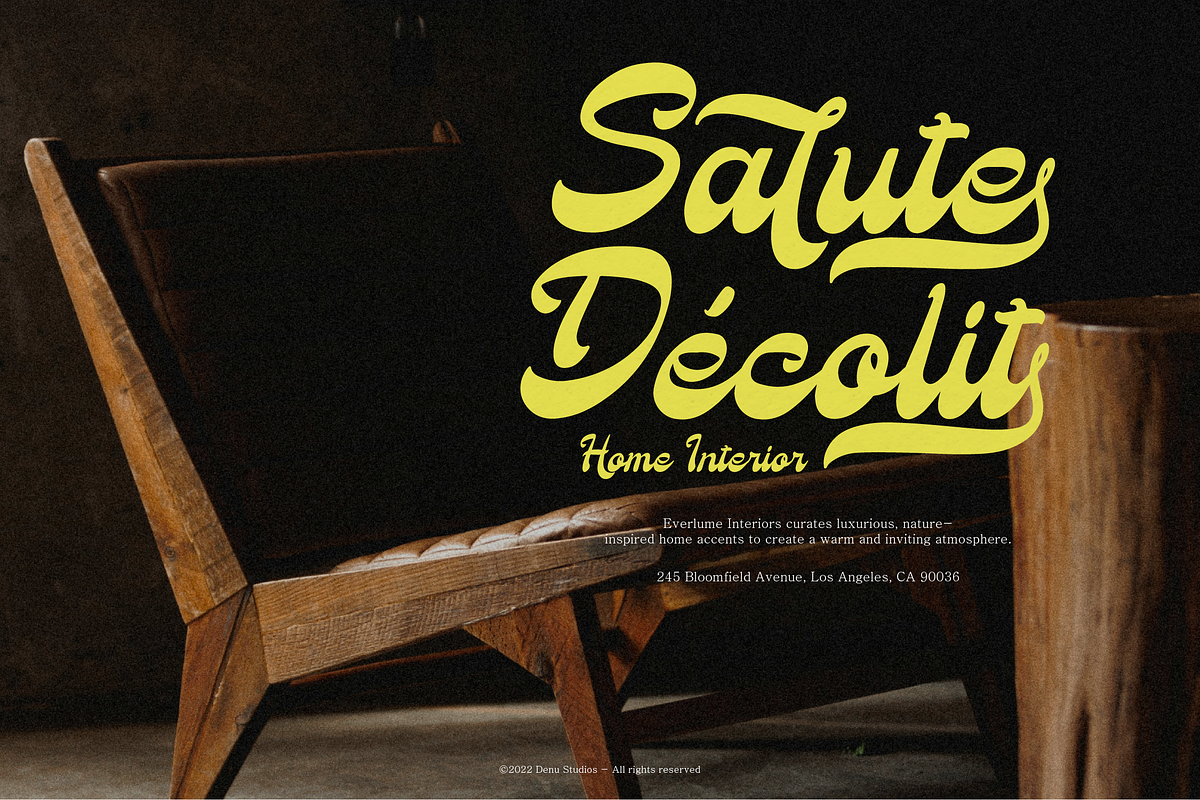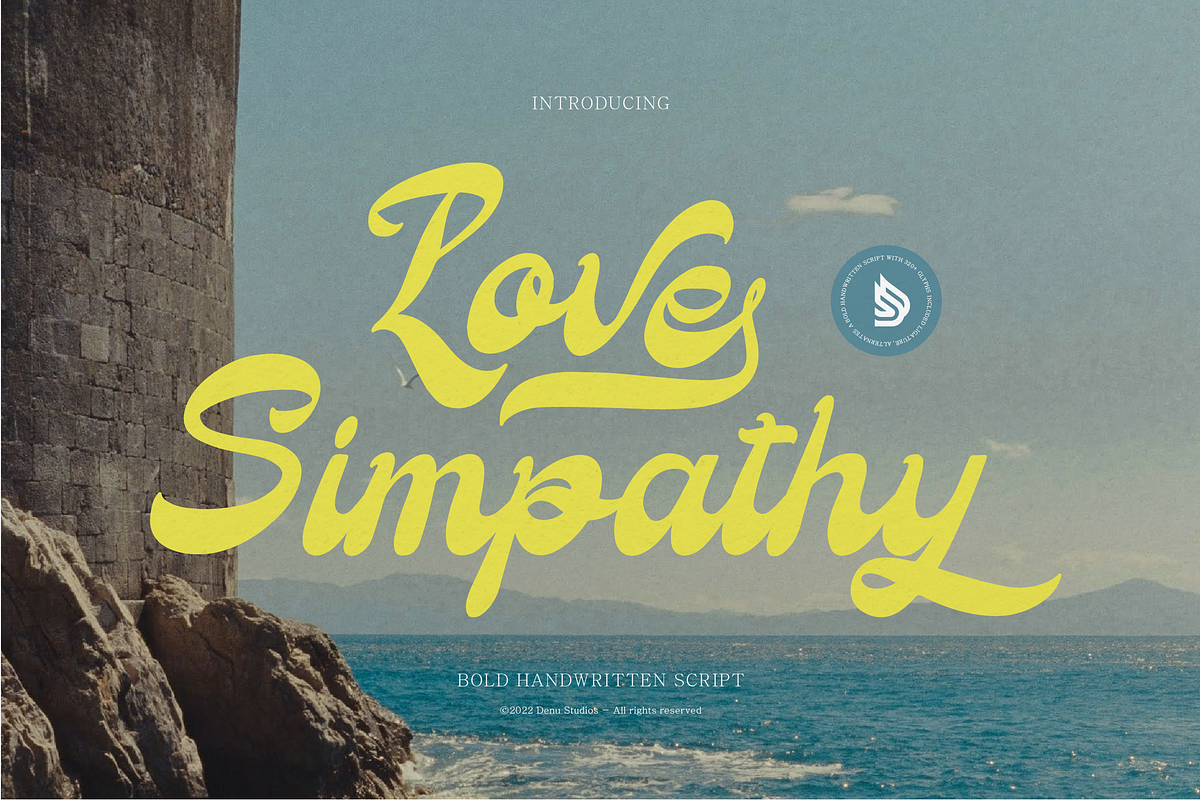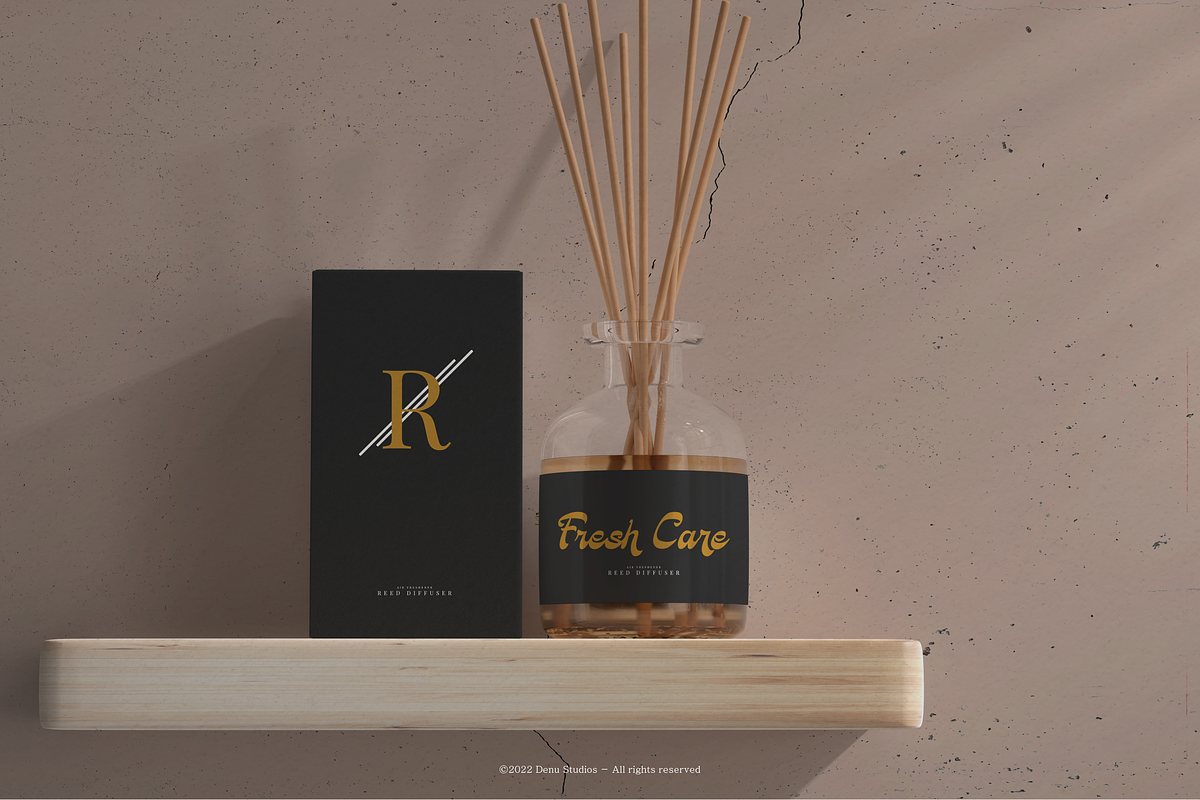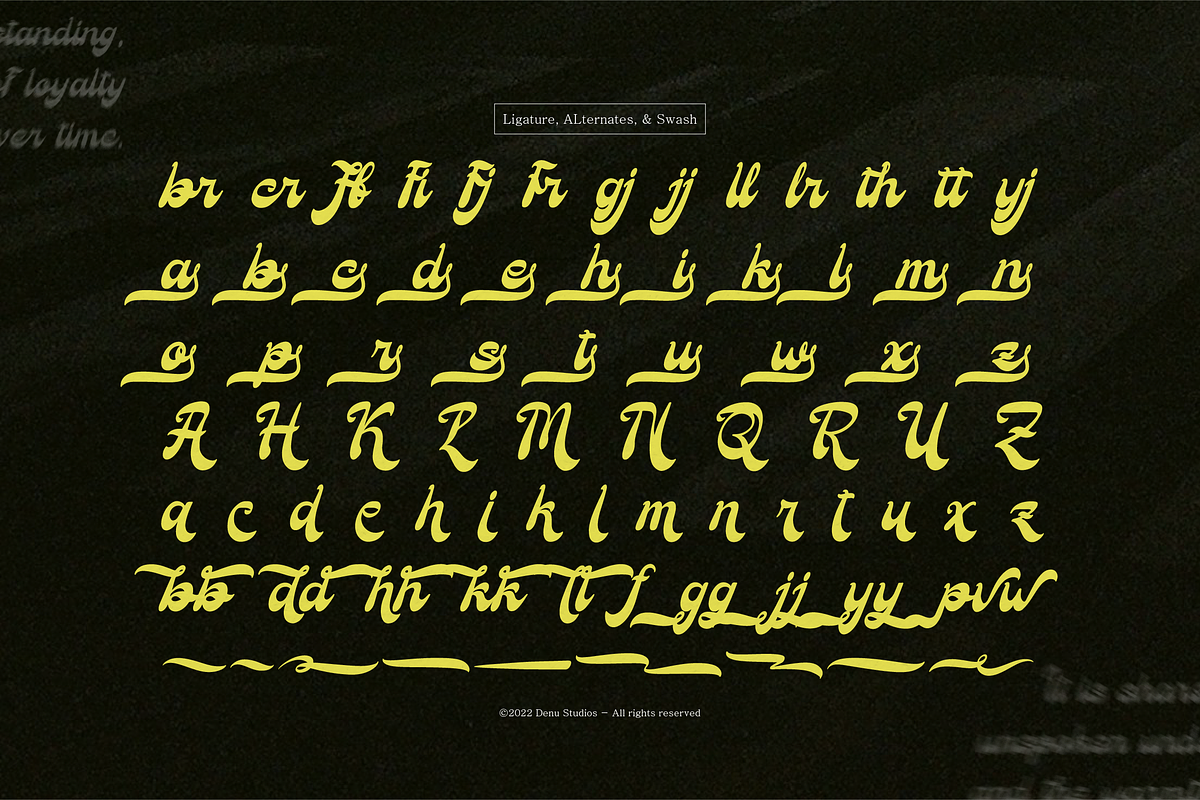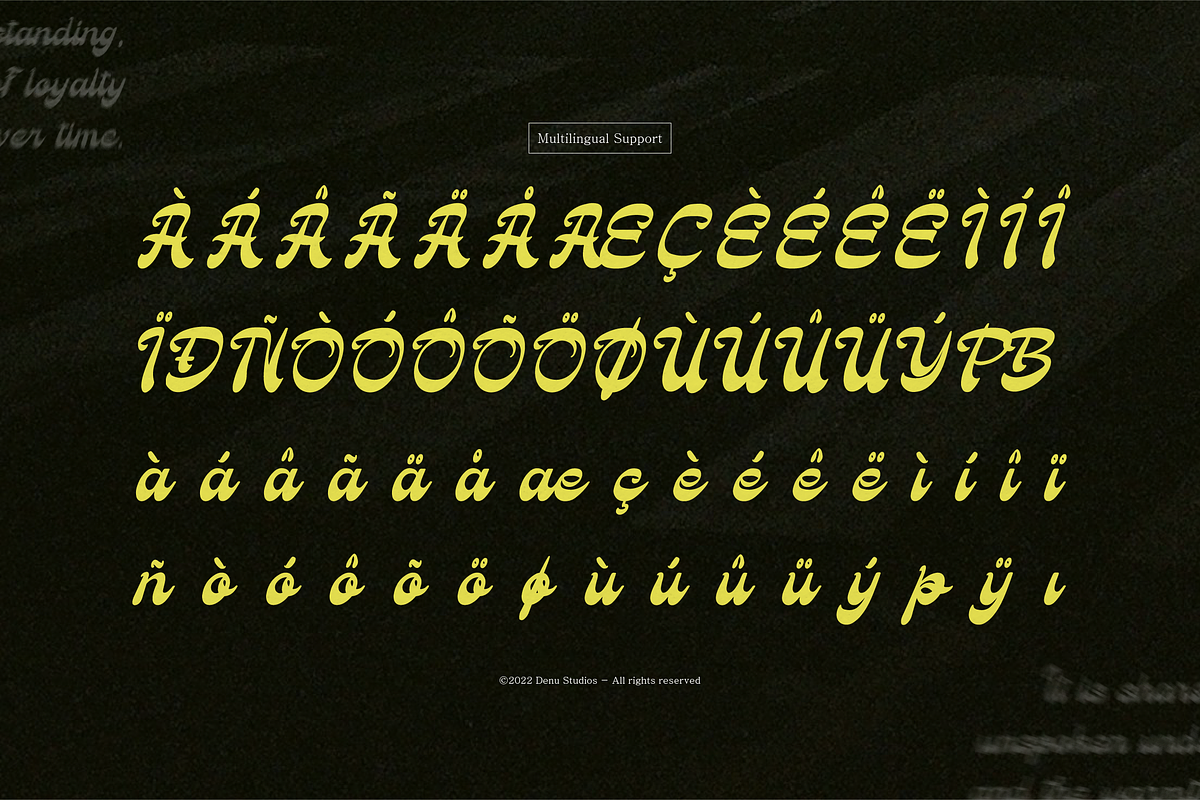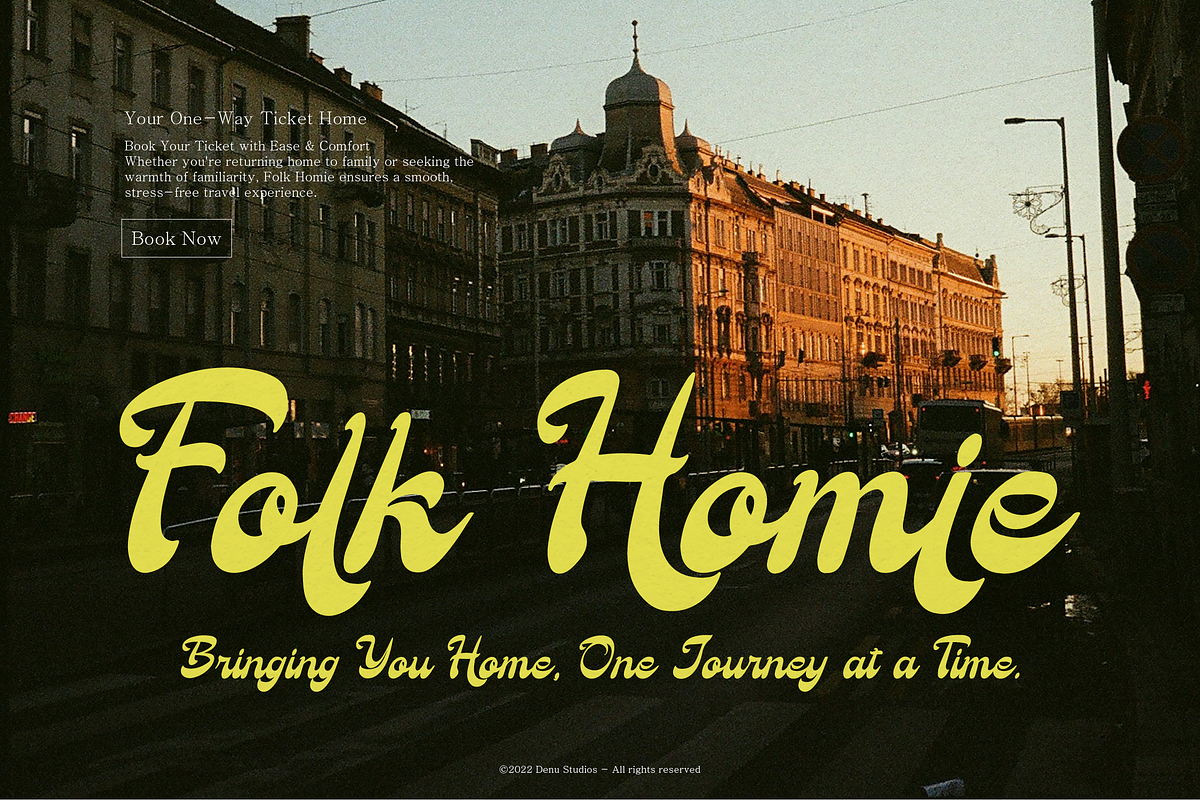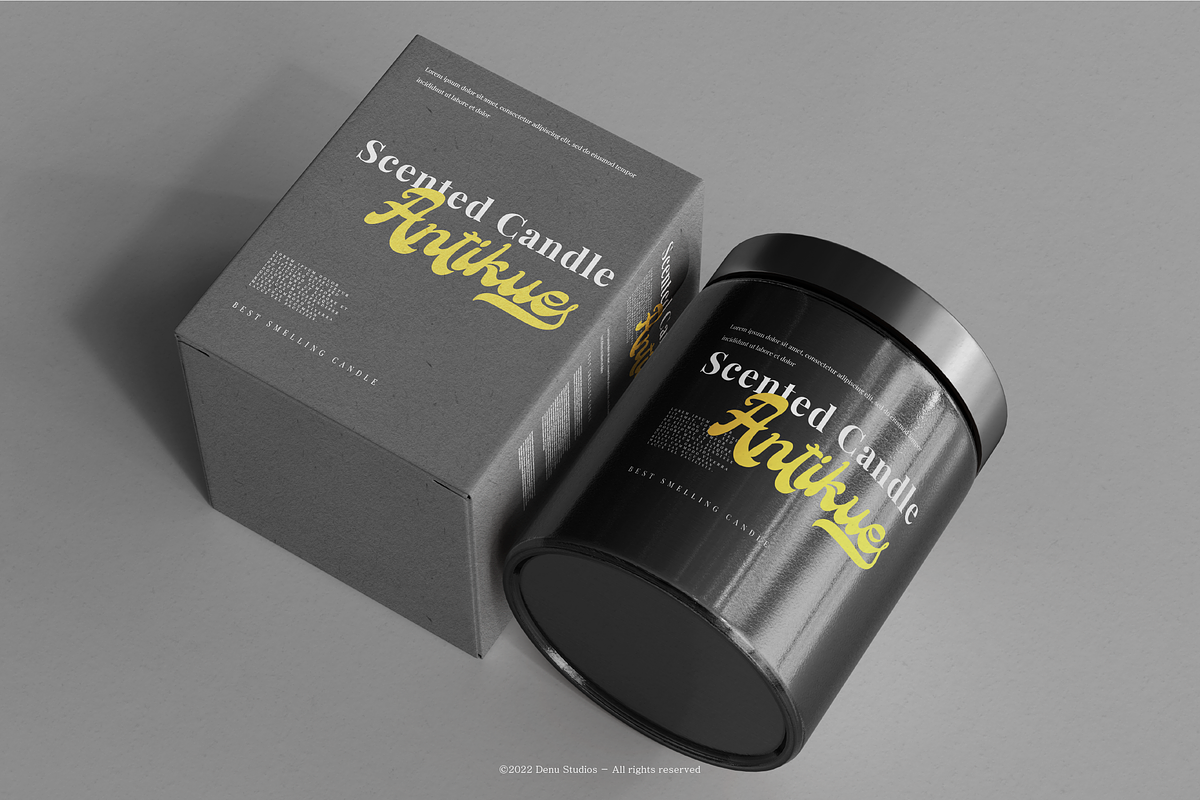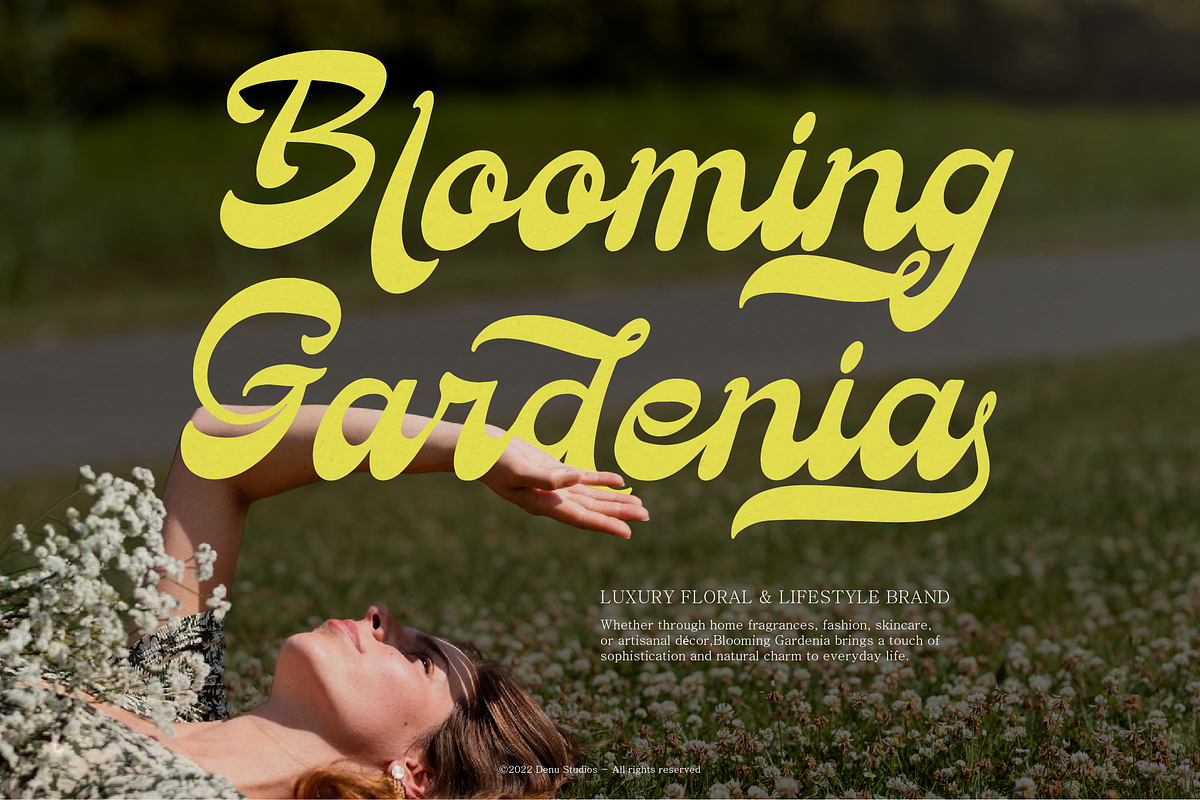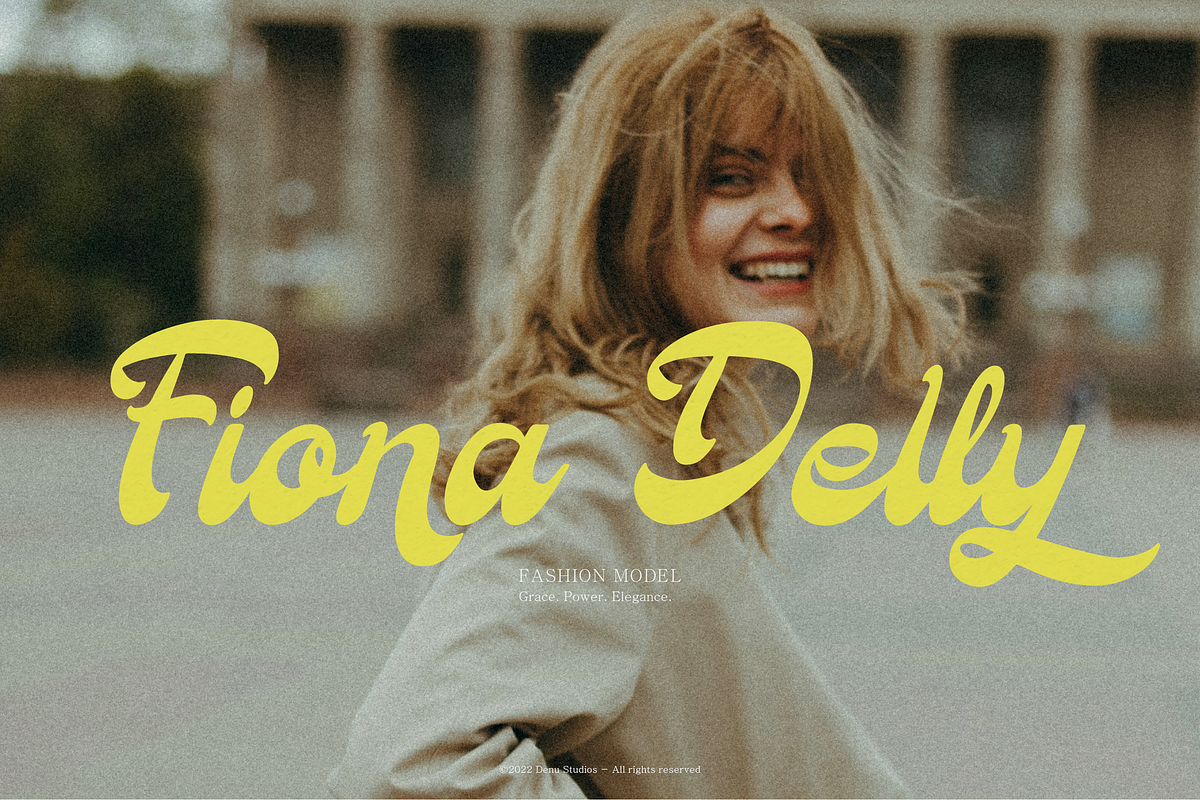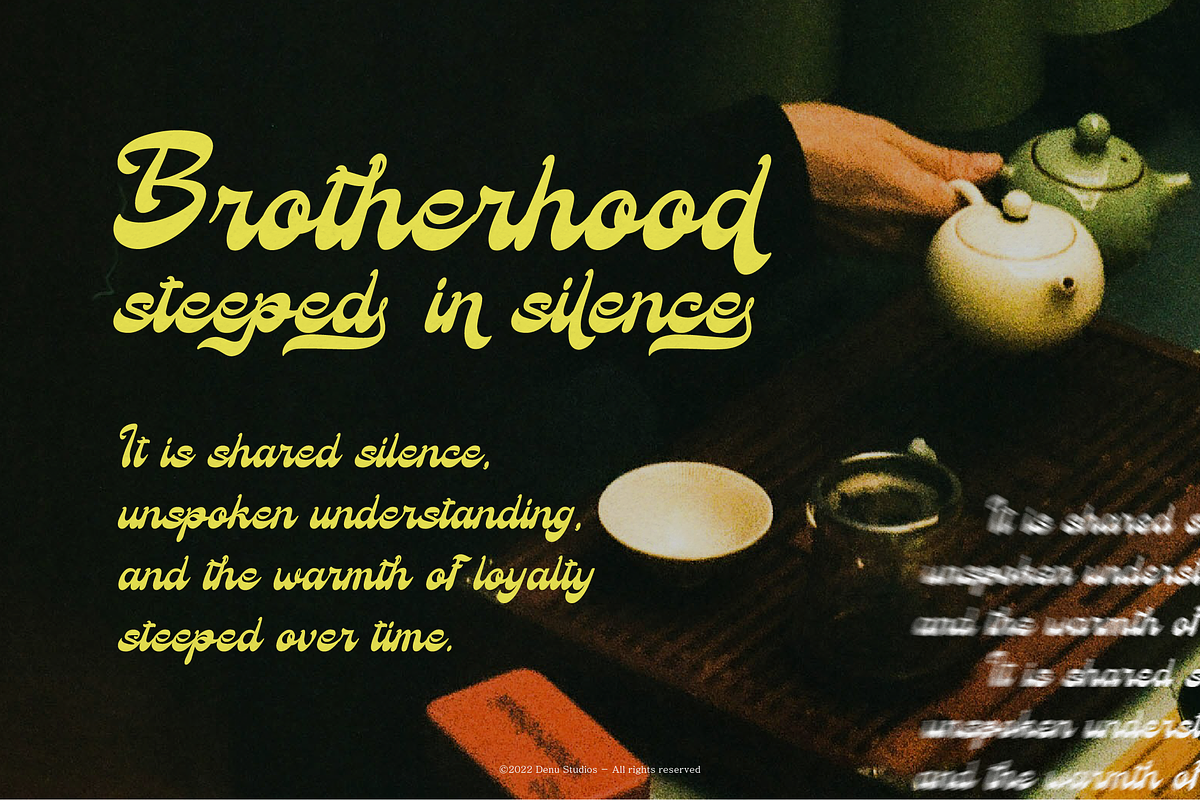
Love Simpathy | Bold Handwritten
Love Simpathy | Bold Handwritten Script, from Denustudios, suitable for any projects such as: logos, branding projects, homeware designs, product packaging, mugs, quotes, posters, shopping bags, t-shirts, book covers, name card, invitation cards, greeting cards, label, photography, watermark, special events, and all your other lovely projects that need a Bold Handwritten Script taste.